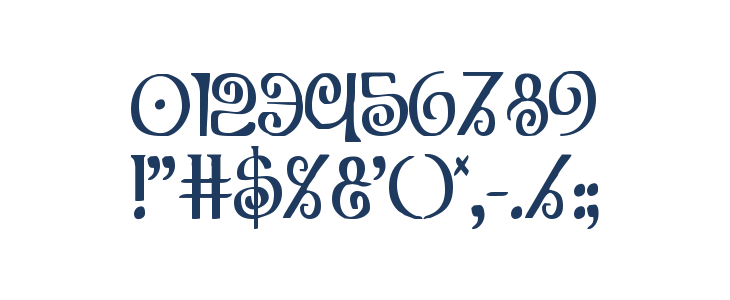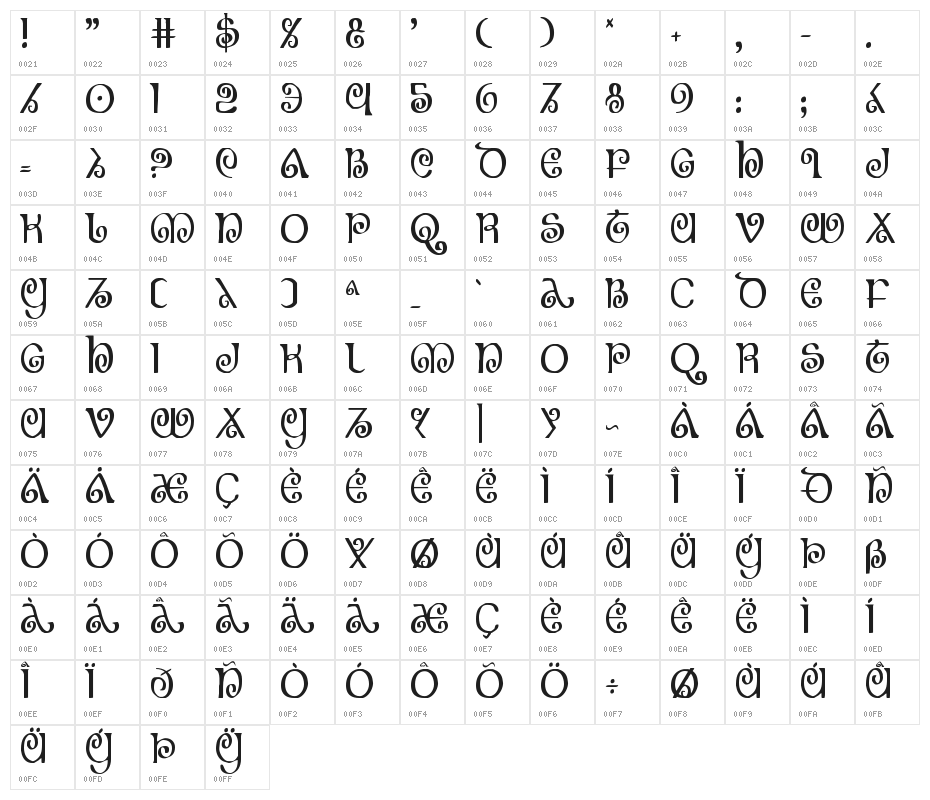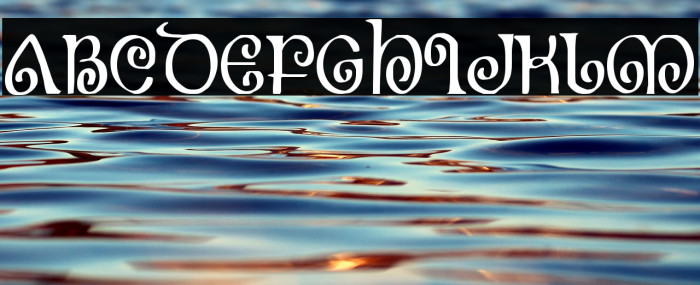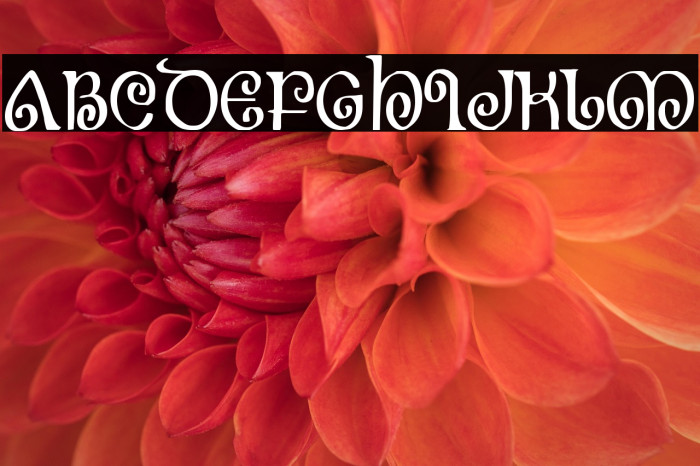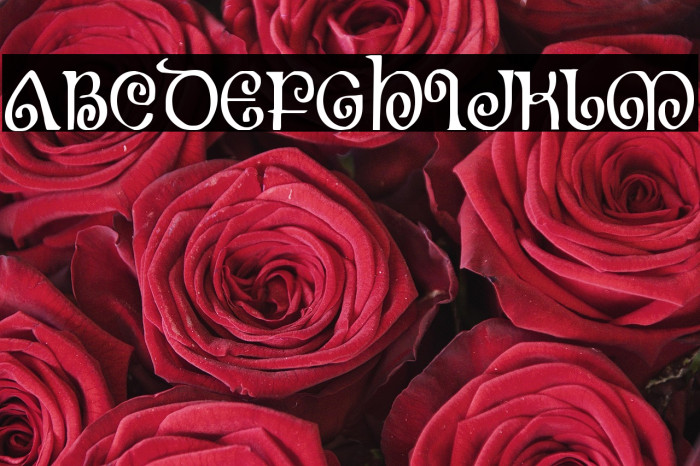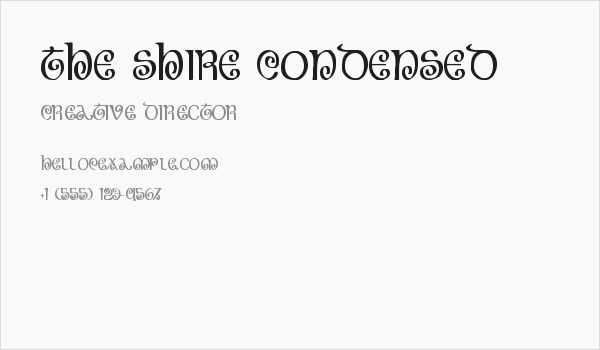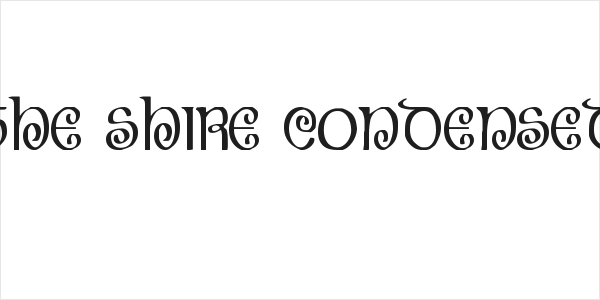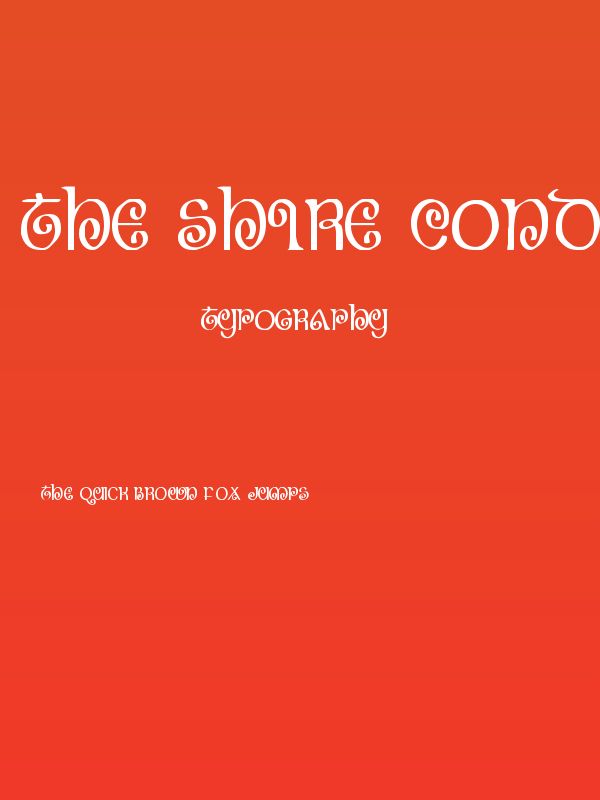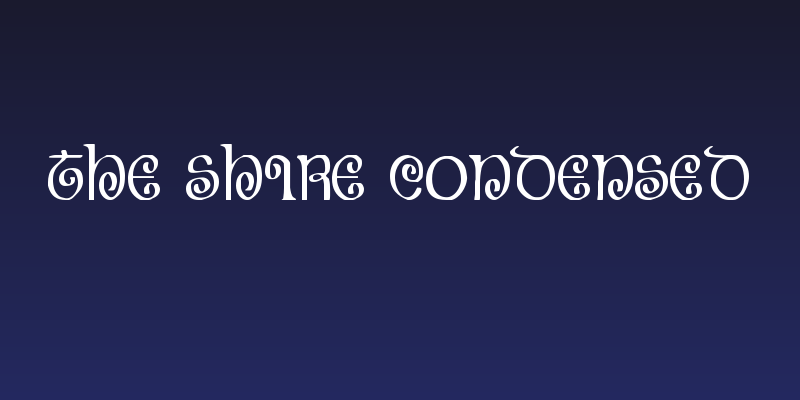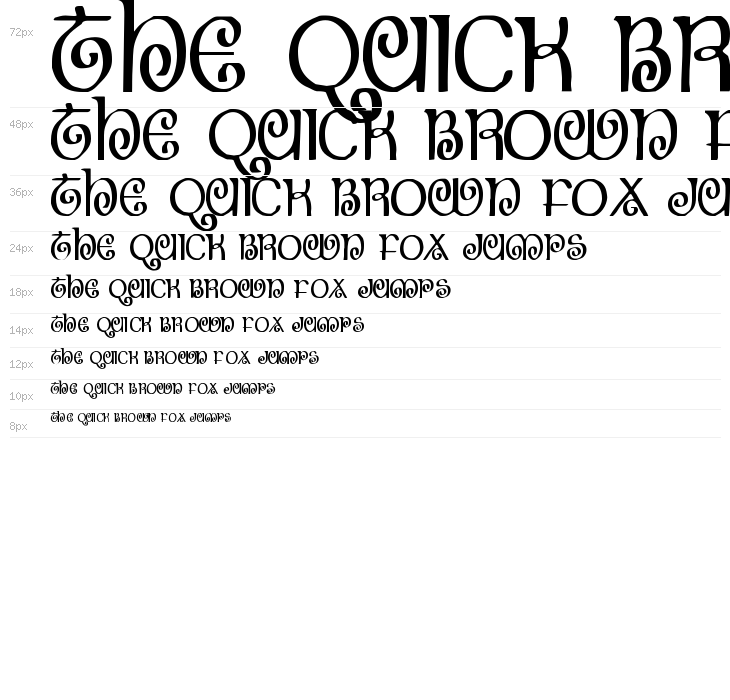
The Shire Condensed Font
The Shire Condensed Description
This font features a whimsical and decorative style, characterized by its unique, swirling serifs and playful curves. The uppercase and lowercase letters share a consistent design, with each character exhibiting a distinct flair that adds to the font's charm. The numbers and special characters maintain this decorative theme, ensuring a cohesive look across all glyphs. The font's artistic elements make it stand out, offering a sense of fantasy and creativity. Its condensed form allows for efficient use of space while maintaining readability. The overall design is both eye-catching and functional, making it suitable for various creative applications.
| Proposed Projects | Ideal for fantasy-themed projects, book covers, posters, and creative branding. |